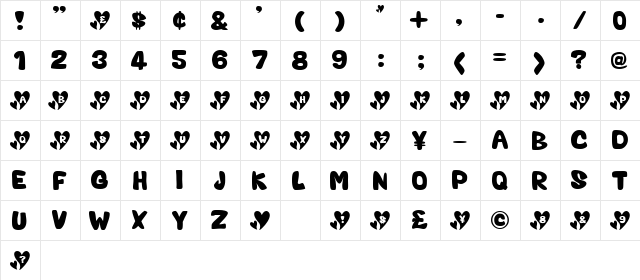
Valentine Caps
Design Context for Valentine Typeface
Valentine is a composed and adaptable typeface that performs quietly and consistently across a wide range of design contexts.